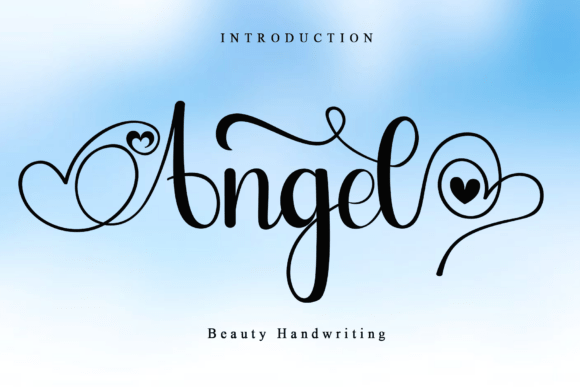
The Enchanting Angel Font: A Designer’s Dream Come True
I’ll never forget the time I was working on a wedding invitation project, and my client asked for a font that was ” elegant, yet playful, and made them feel like royalty.” I scoured the internet, tried out dozens of fonts, but nothing seemed quite right. That was until I stumbled upon the stunning Angel Font. With its beautifully flowing script and charming personality, it was love at first sight!
A Personal Review: What I Love About Angel Font
So, what makes Angel Font so special? Here are a few things that I absolutely adore:
• ✨ Smooth Curves: The font features smooth, flowing curves that give it a luxurious feel.
• ✅ Handwritten Feel: The subtle imperfections and variations in line width make it feel like a handwritten script.
• 💕 Romantic Vibes: The elegant, cursive strokes evoke a sense of romance and sophistication.
While Angel Font is truly amazing, there are a few minor quirks to be aware of:
• 🤔 Limited Multilingual Support: While the font supports many languages, it may not cover all characters or diacritics.
• ⚠️ Not Suitable for Body Text: Due to its elegant, cursive nature, Angel Font is best used for headlines, titles, or short paragraphs.
The Designer Inspiration Behind Angel Font
While the true story behind Angel Font’s creation is unknown, it’s easy to imagine that it was crafted by a designer who wanted to evoke a sense of romance and sophistication. Perhaps they drew inspiration from classic calligraphy, elegant wedding invitations, or vintage typography. Whatever the inspiration, the result is a font that’s both beautiful and versatile.
What type of projects is Angel Font best suited for? Angel Font is perfect for wedding invitations, personal branding, elegant packaging, romantic quotes, and any project that requires a touch of elegance and sophistication.
Is Angel Font suitable for body text? No, due to its elegant, cursive nature, Angel Font is best used for headlines, titles, or short paragraphs.